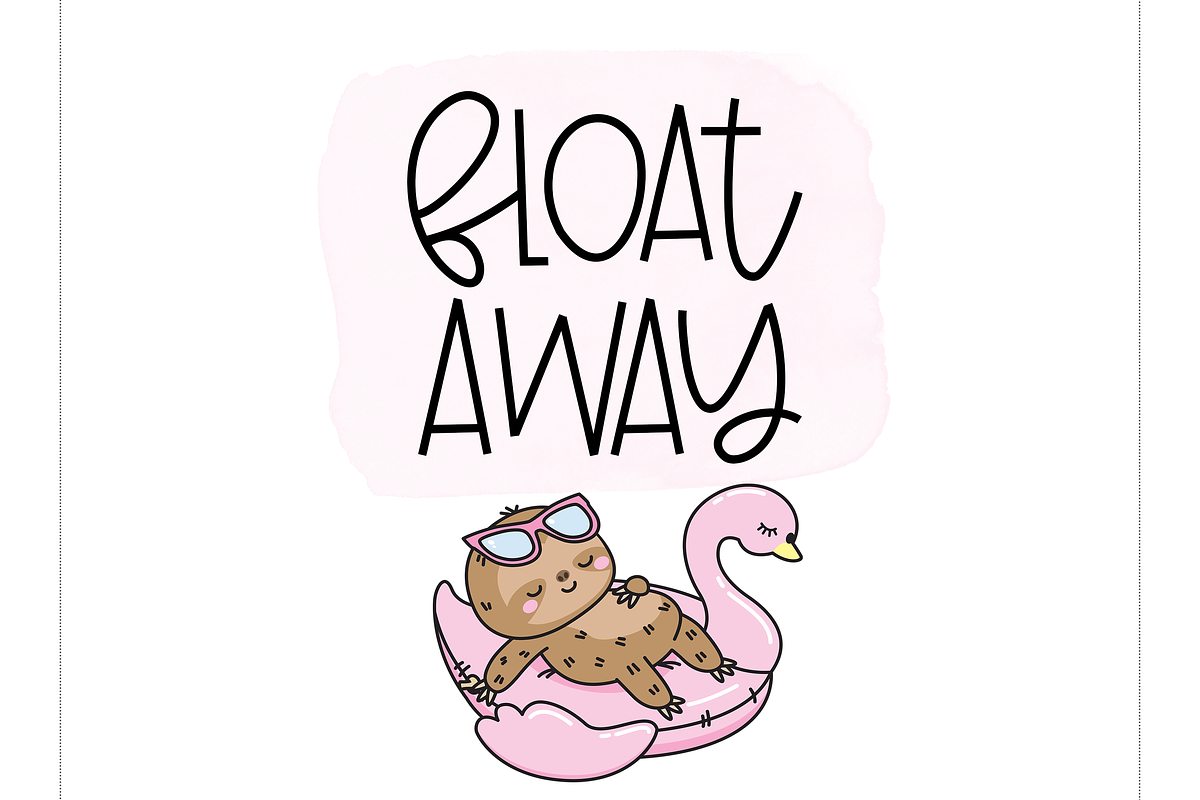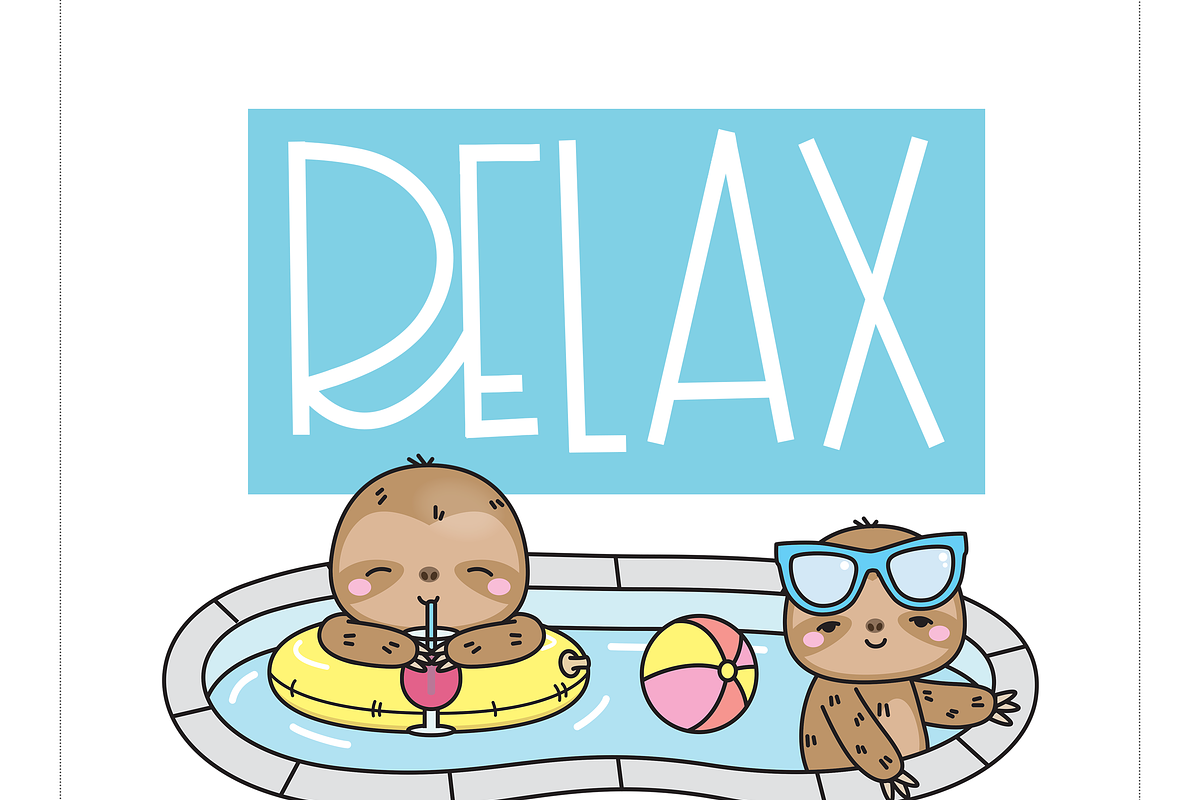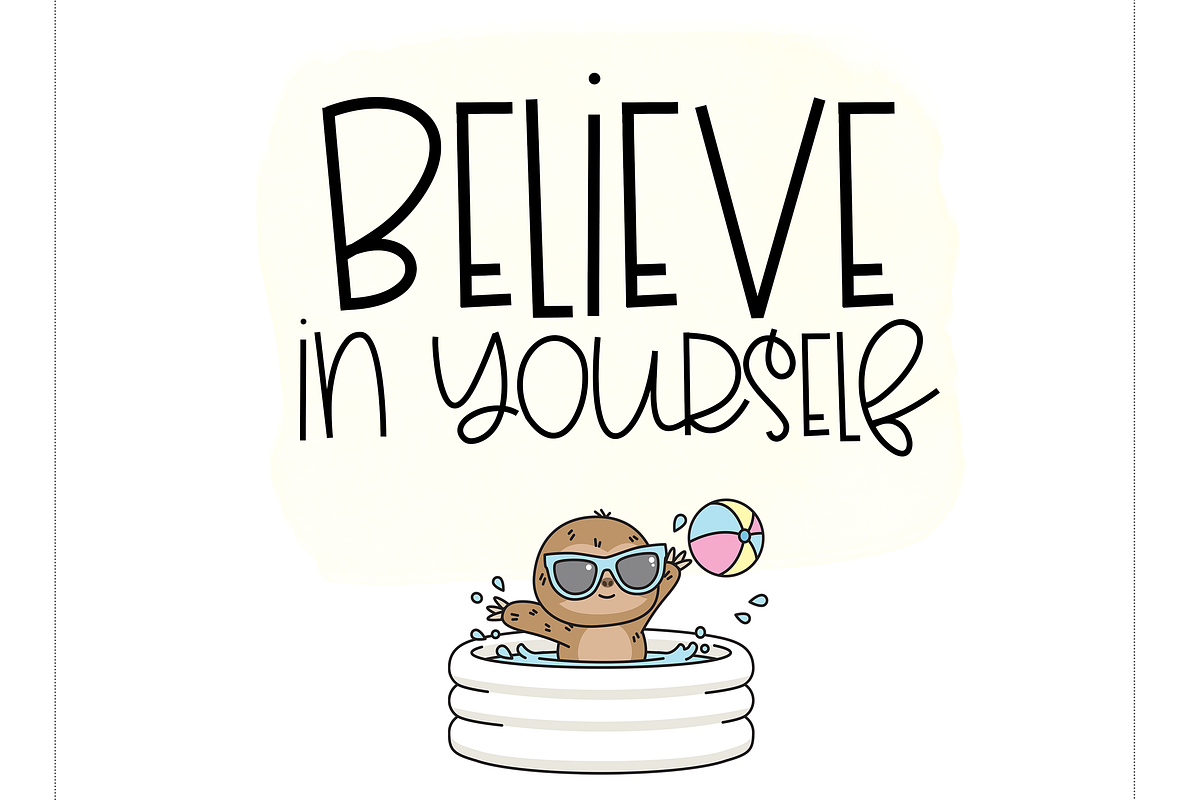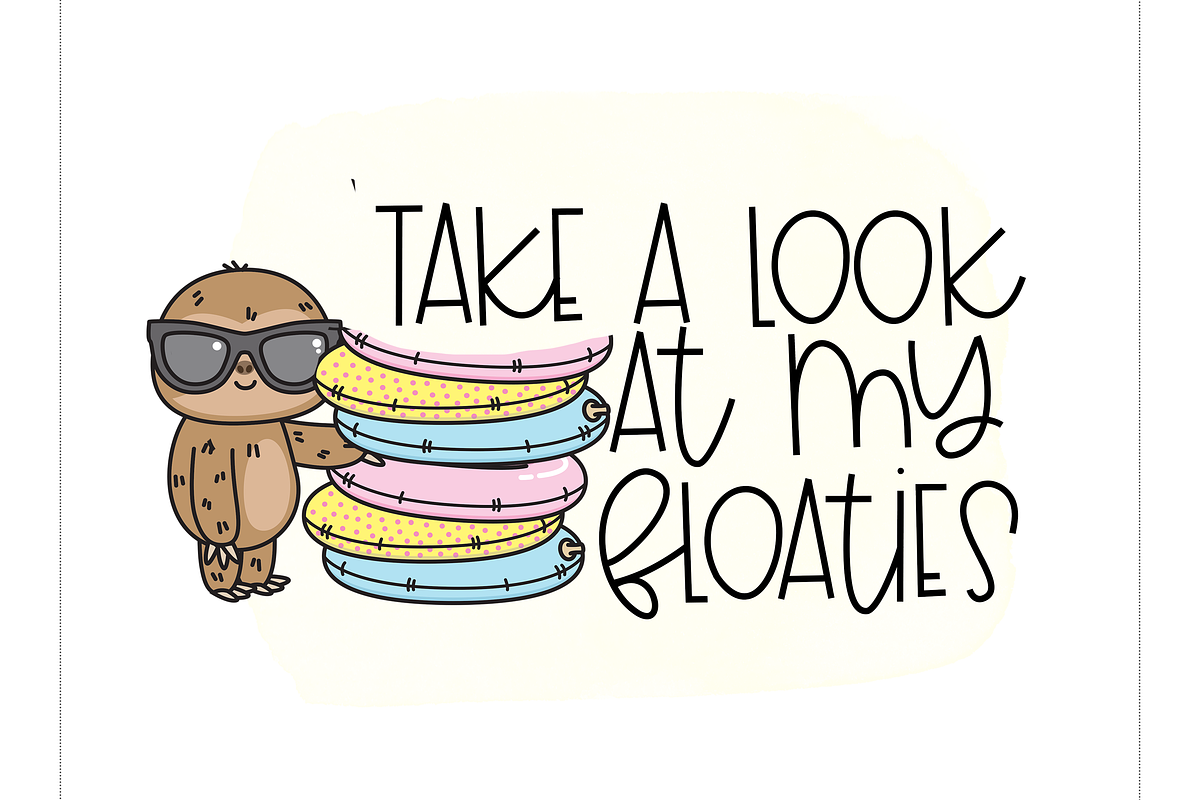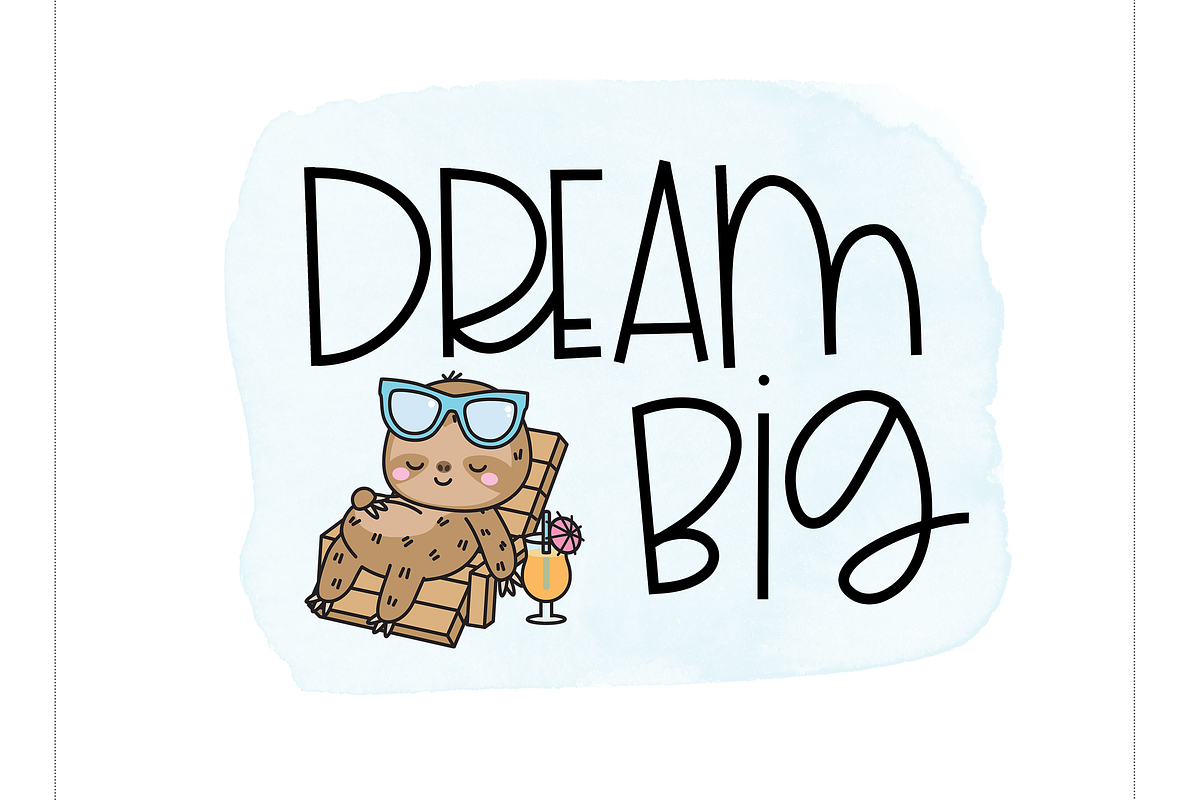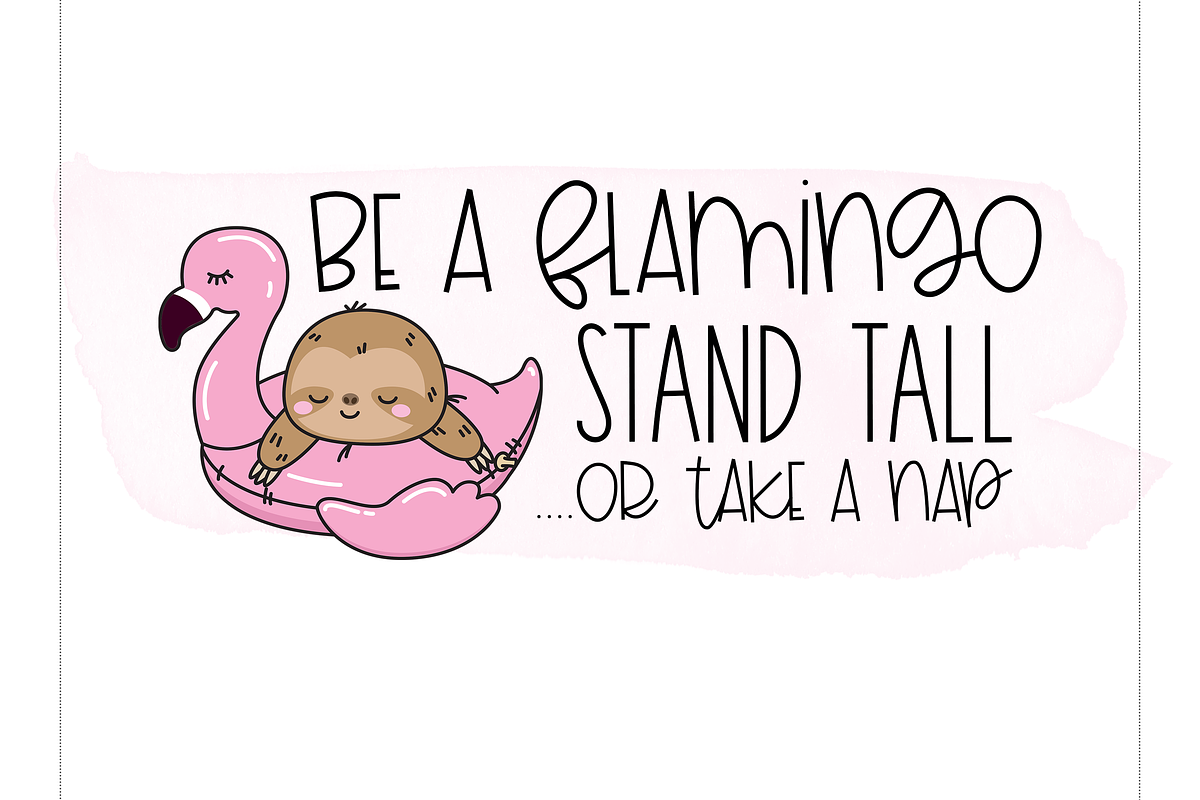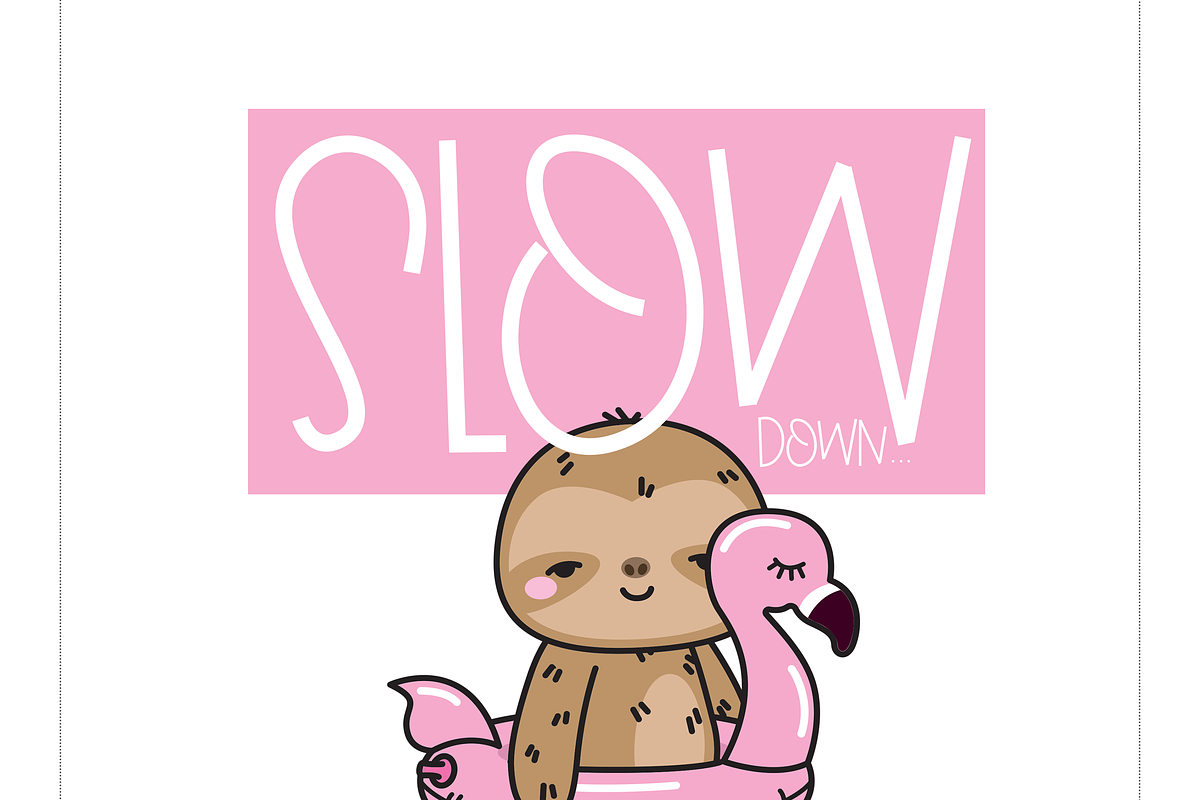
Floaties - A Cute Handwritten Font
Floaties is a cute handwritten font. This font is perfect for quotes, headings, blogs, logos, invitations and more! It is also great for children's designs!
Floaties - A Cute Handwritten Font by KA Designs fits naturally into Branding, posters, packaging, typography.